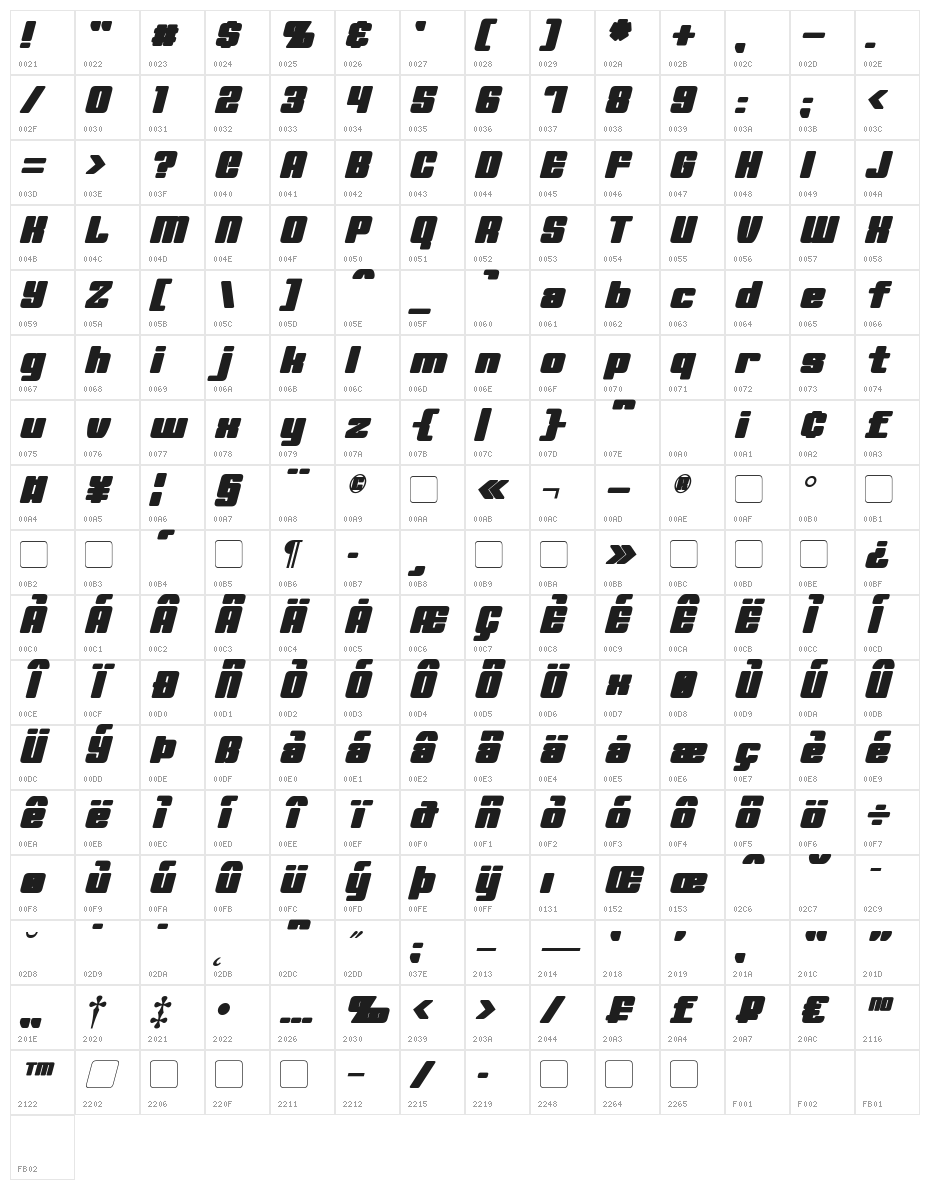
Minerva Italic Font
Minerva Italic Description
This font features a bold and dynamic style with a strong presence. The characters are slightly slanted, giving an italicized appearance that adds a sense of motion and energy. The strokes are thick and consistent, providing a robust and impactful look. The overall design is modern and sleek, with a slight futuristic touch. The uppercase and lowercase letters maintain a uniform width, contributing to a cohesive visual flow. The numerals and special characters are designed to match the boldness and style of the alphabet, ensuring consistency across all text elements.